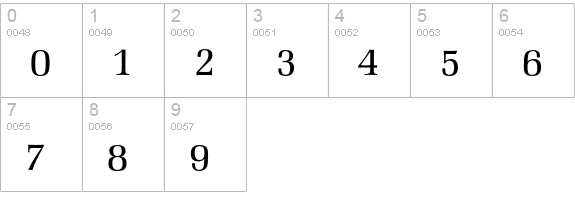
Marseille-Regular Font Details
Marseille-Regular is the standard, neutral variant in the Marseille typeface family \xE2\x80\x94 well suited to general body text, paragraphs, and standard typographic work.
Marseille-Regular is a timeless and versatile font that exudes elegance and sophistication. With its clean lines and balanced proportions, this font is perfect for adding a touch of refinement to any design project. Whether you're creating a logo, a website, or a print advertisement, Marseille-Regular will effortlessly enhance the overall aesthetic. This font features a classic yet contemporary style, making it suitable for a wide range of applications. Its smooth curves and sharp edges create a harmonious balance that is pleasing to the eye. Marseille-Regular is highly legible, ensuring that your message is easily conveyed to your audience. One of the most appealing aspects of Marseille-Regular is that it is free to download. You can easily access this font at FontsMarket.com, where it is available for instant download. This means that you can start using Marseille-Regular in your projects right away, without any cost or hassle. Whether you're a professional designer or a hobbyist, Marseille-Regular is a valuable addition to your font collection. Its versatility and timeless appeal make it a reliable choice for a wide range of design projects. Download Marseille-Regular for free at FontsMarket.com and elevate the visual impact of your creations.